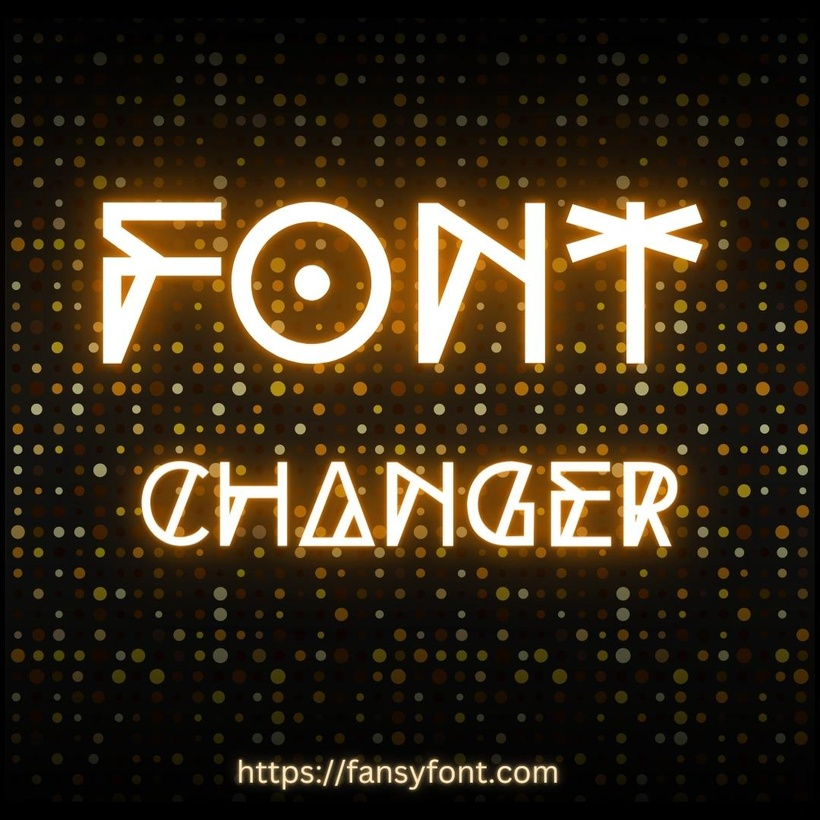
Fancy Fonts Better then Standard Font
Fancy fonts, often manipulated through a “font changer,” distinguish themselves significantly from standard fonts by embracing a captivating and artistic approach to typography. Unlike standard fonts’ practical and straightforward nature, fancy fonts undergo intricate design alterations that imbue them with a distinctive visual flair, setting them apart in aesthetics and creative expression. These fonts often incorporate ornamental elements, complex loops, decorative swashes, and unique stylistic variations that contribute to a sense of elegance, individuality, and artistic charm.
One of the most notable distinctions between fancy fonts and standard fonts lies in the complexity of their design. Standard fonts are deliberately crafted for optimal legibility and communication, prioritizing clarity and ease of reading across various platforms. In contrast, fancy fonts prioritize the text's visual impact and artistic resonance, often sacrificing some level of readability for aesthetics. This intricate and elaborate design allows fancy fonts to evoke specific moods, themes, or emotions, elevating the text beyond mere communication to a visually captivating art form.
Furthermore, the spectrum of styles offered by fancy fonts through a "font changer" is vast and versatile, catering to many contexts and preferences. Standard fonts maintain a consistent and uniform appearance across different platforms and applications to ensure a cohesive reading experience. On the other hand, fancy fonts embrace diversity, encompassing an array of calligraphy-inspired scripts, vintage typewriter styles, handwritten aesthetics, and different intricate designs. These fonts provide a rich tapestry of choices that draw inspiration from various cultural influences and artistic traditions, allowing users to infuse their text with a personalized and captivating visual identity.
Fancy fonts find considerable relevance in creative fields such as graphic design, branding, and digital content creation, where aesthetic appeal plays a crucial role. The font changer facilitates the transformation of a simple message into a visually arresting and attention-grabbing piece of visual communication. Fancy fonts become the vehicle through which individuals and businesses can enhance the overall impact of their content, be it in advertisements, social media posts, logos, or other visual elements.